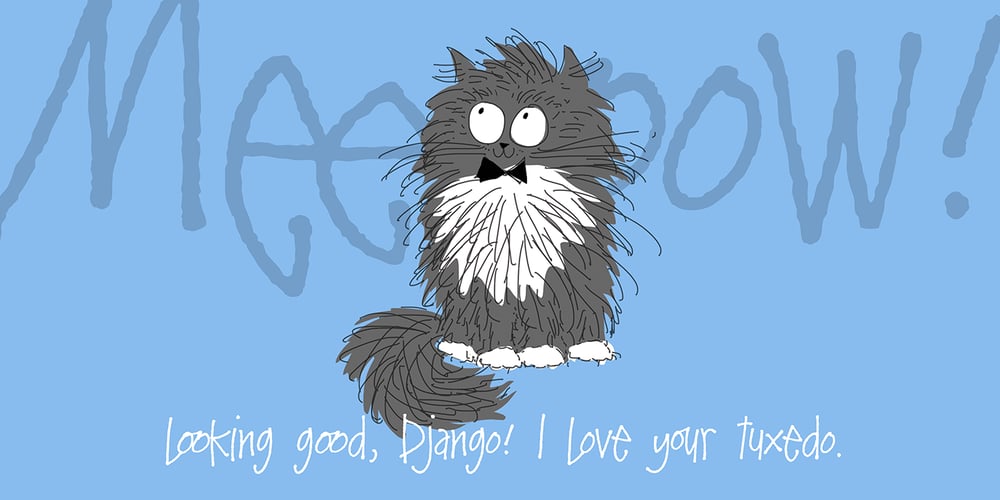
Solstice Font Family was designed by Amy Dietrich and published by Atlantic Fonts. Solstice contains 1 styles and family package options. Bright with many interlocking and connecting ligatures and warm with hand-drawn irregularity, Solstice is something to celebrate. Based on the inspiring hand writing of creative friend, Kimberly Mahan.